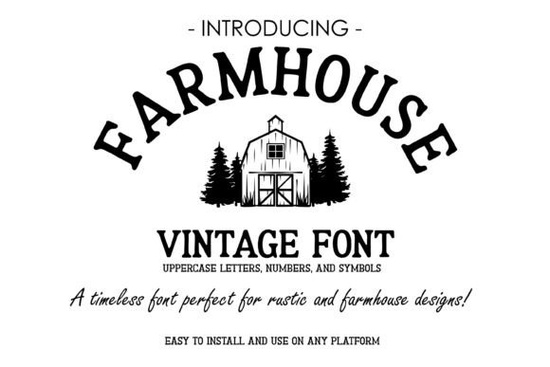
If you're looking for a rustic serif font that feels warm, authentic, and quietly confident like weathered wood and hand-stitched linen the Farmhouse Vintage Font fits naturally into your design toolkit. It’s not overly ornate or fussy, but it carries quiet character: slightly uneven strokes, gentle contrast, and a relaxed rhythm that reads as handmade rather than machine-perfect. That makes it especially useful for crafters and small businesses who want their printed or cut designs to feel personal and grounded not generic or mass-produced.
What kind of projects work well with this font?
Here’s where users commonly apply it:
- T-shirts and tote bags Works beautifully layered over burlap textures or faded denim backgrounds.
- Wedding invitations and place cards Its gentle serifs add sincerity without formality.
- Small business branding Think café chalkboard menus, bakery labels, or local farm stand signage.
Who tends to get the most value from fonts like this?
Small batch makers, Etsy sellers, church volunteers organizing community events, teachers creating classroom posters, and home-based stationery designers all report using Farmhouse Vintage Font across multiple seasons not just for fall harvest themes, but year-round for baby announcements, farmer’s market signs, or cozy coffee shop branding. It pairs easily with simpler sans-serifs (like Wild Spur Font) for contrast, or stands alone with minimal embellishment.
One practical note: because it’s a serif font with moderate stroke variation, avoid using it smaller than 14pt in print or below 1.5mm in vinyl cutting details like fine serifs may not hold up at tiny sizes. For tiny text, consider pairing it with a clean companion font instead of shrinking it down.
- Open the OTF/TTF file first to preview how letters sit together look especially at common pairs like “Th”, “Wa”, and “ro”. Does the spacing feel even? (It does here no awkward gaps or collisions.)
- Remember: the Farmhouse Vintage Font belongs to the slab-serif family, but it leans more toward organic than geometric. That means it works best alongside natural textures (linen, kraft paper, uncoated cardstock) rather than high-gloss or metallic finishes unless you’re going for intentional contrast.
If you’ve used other rustic fonts and found them too stiff or overly distressed, this one often feels like a relief friendly, functional, and quietly versatile. And since it comes with both installable and cut-ready files, you’re covered whether you’re designing digitally, printing at home, or prepping for a weekend craft fair.